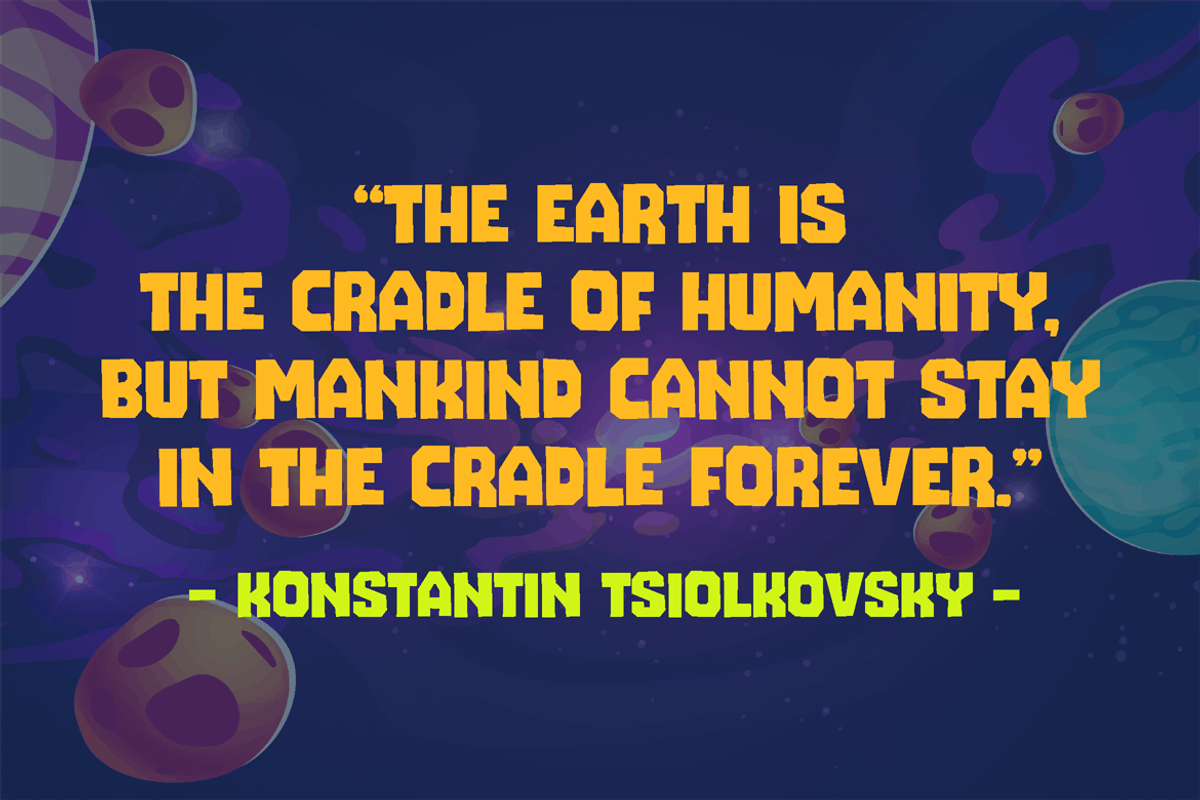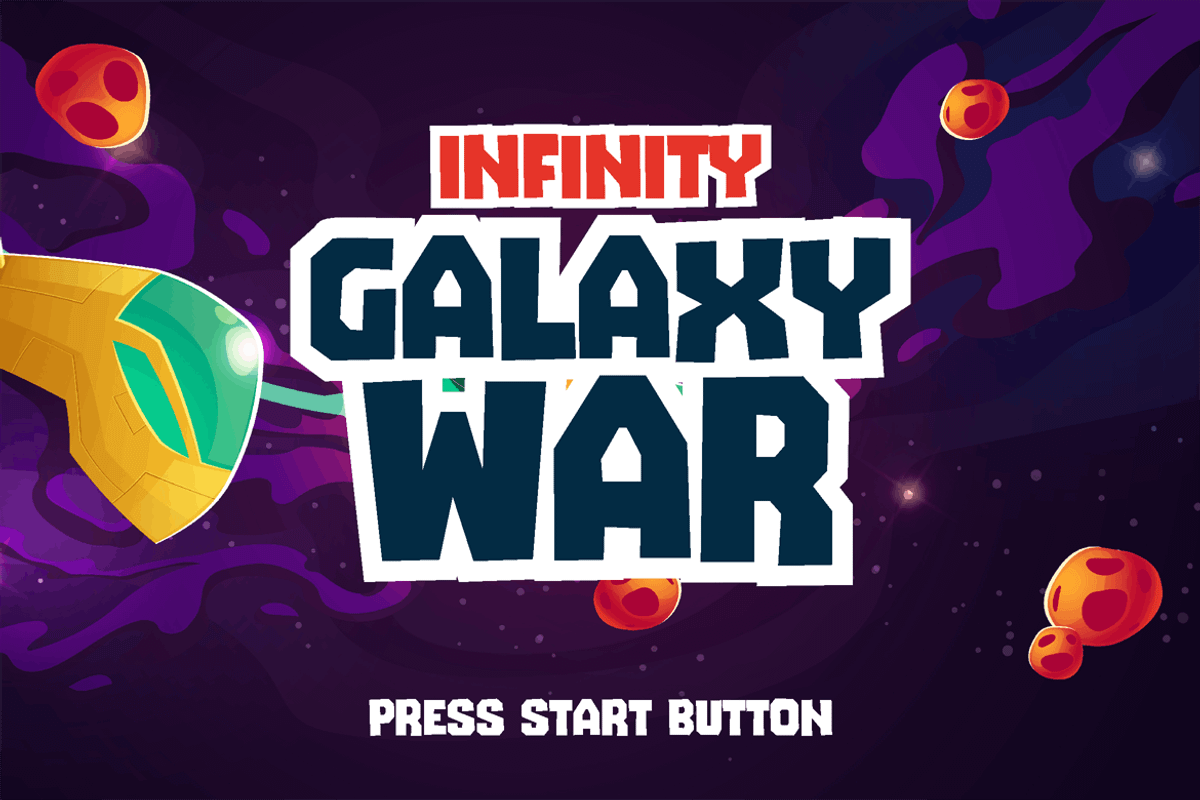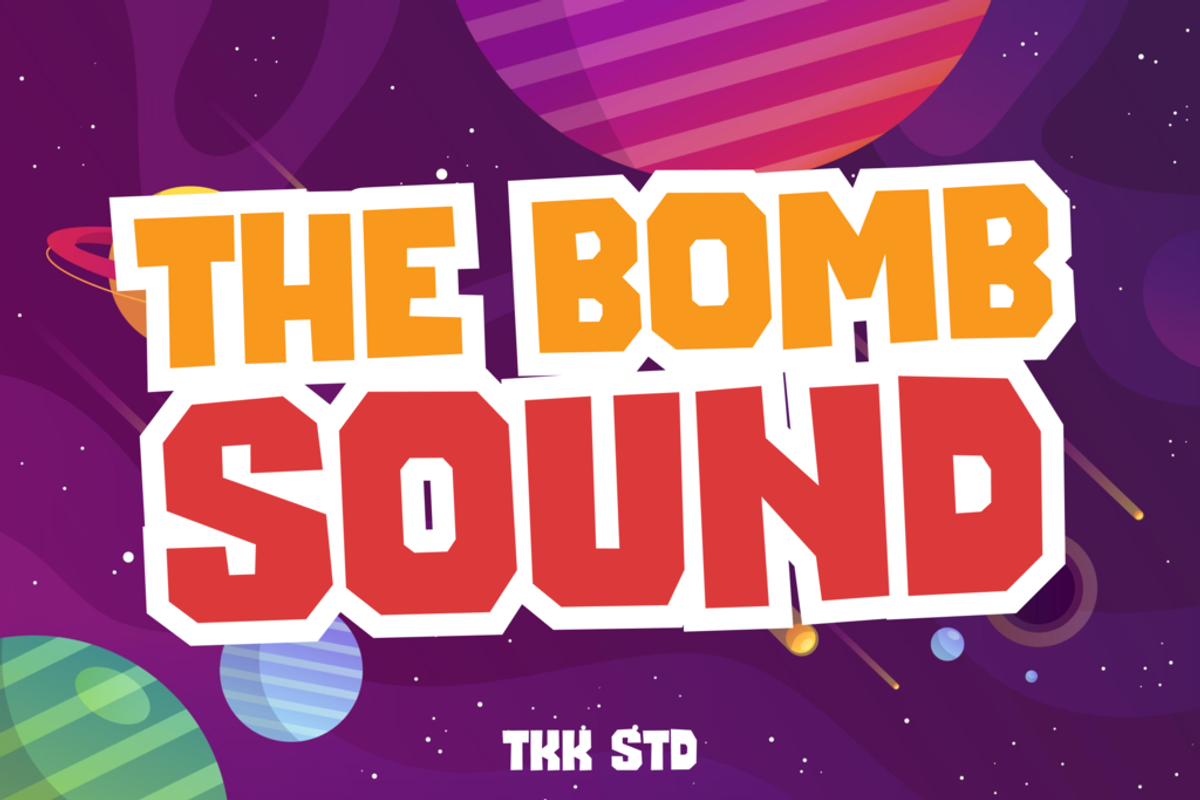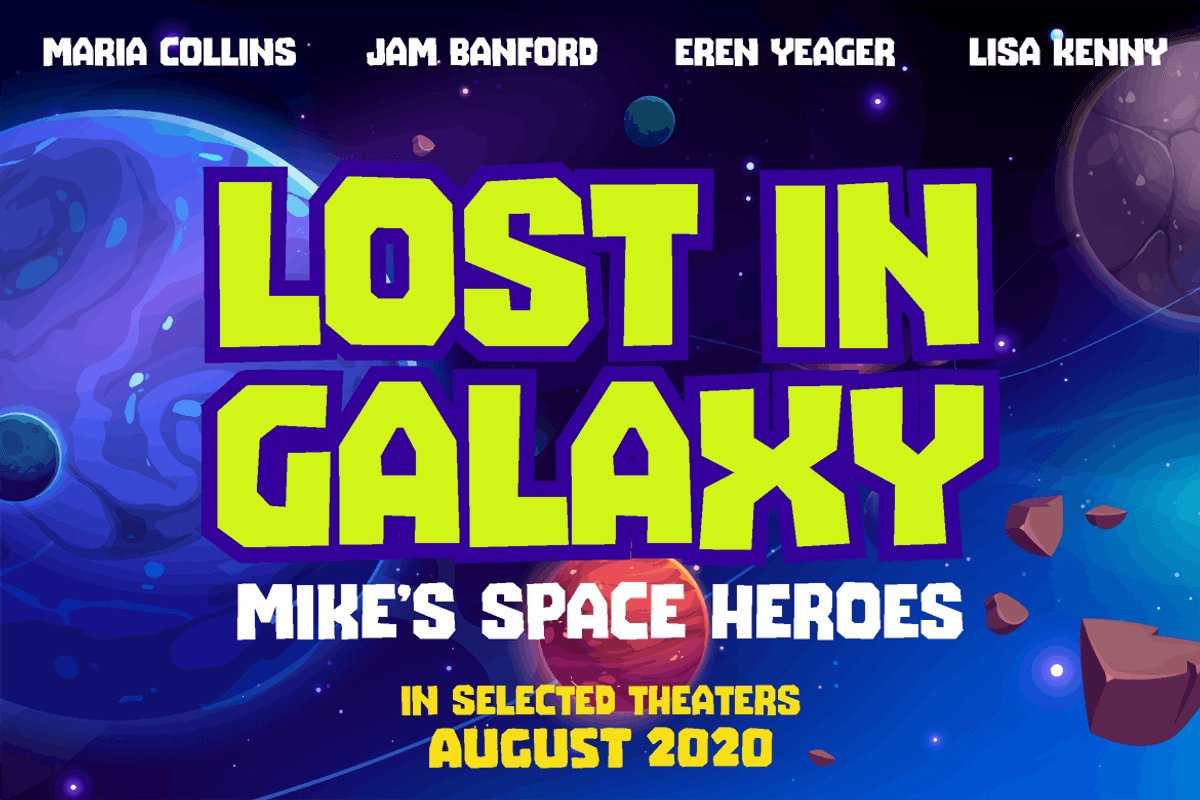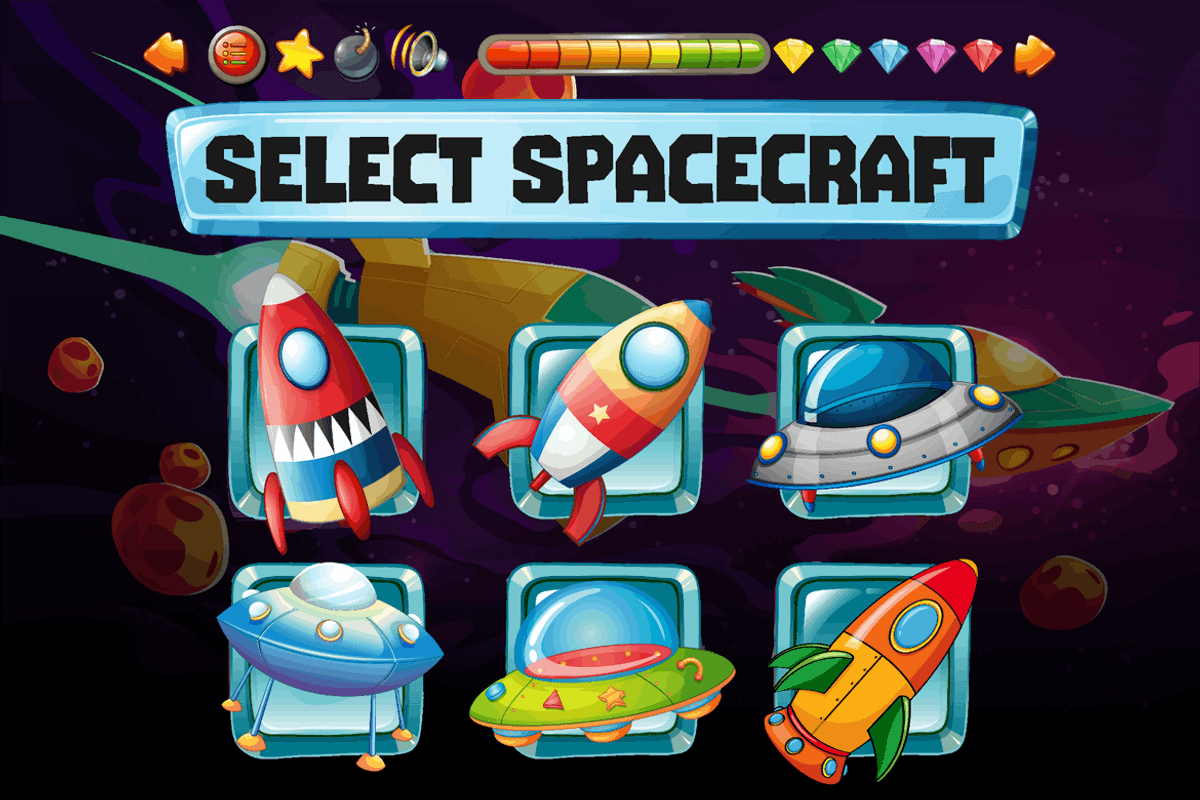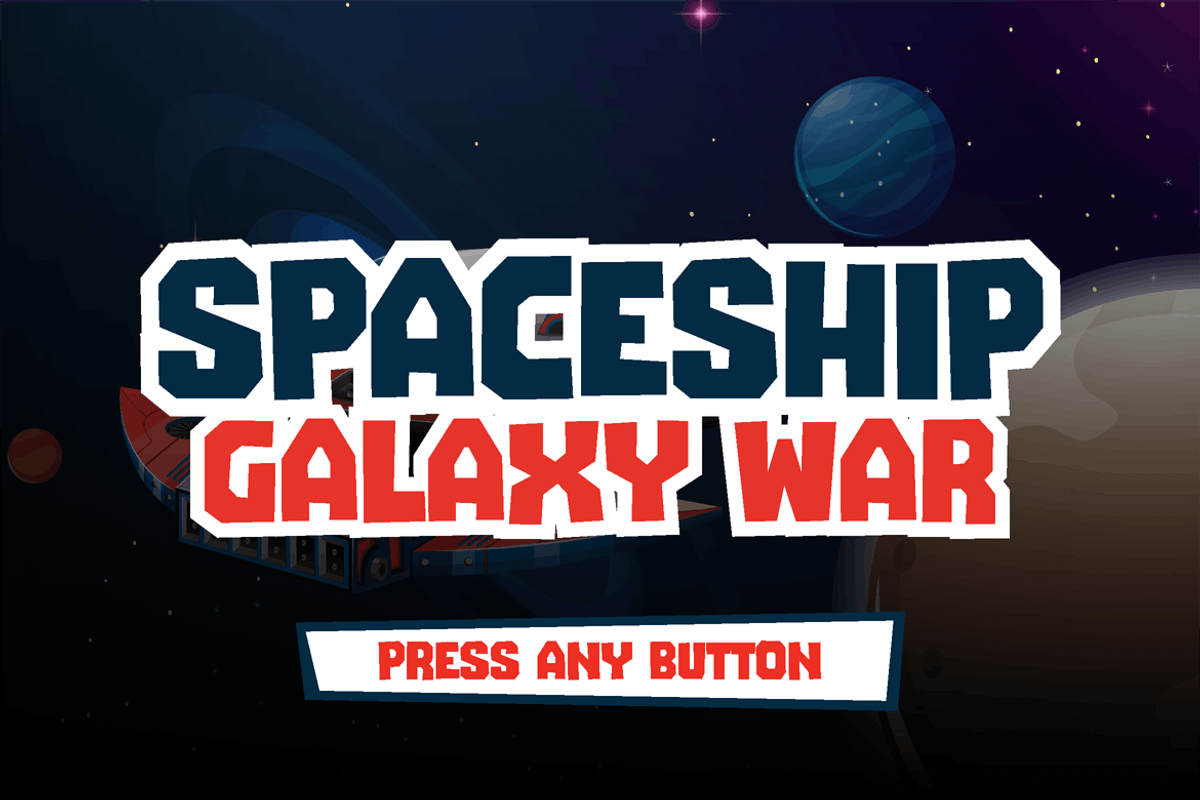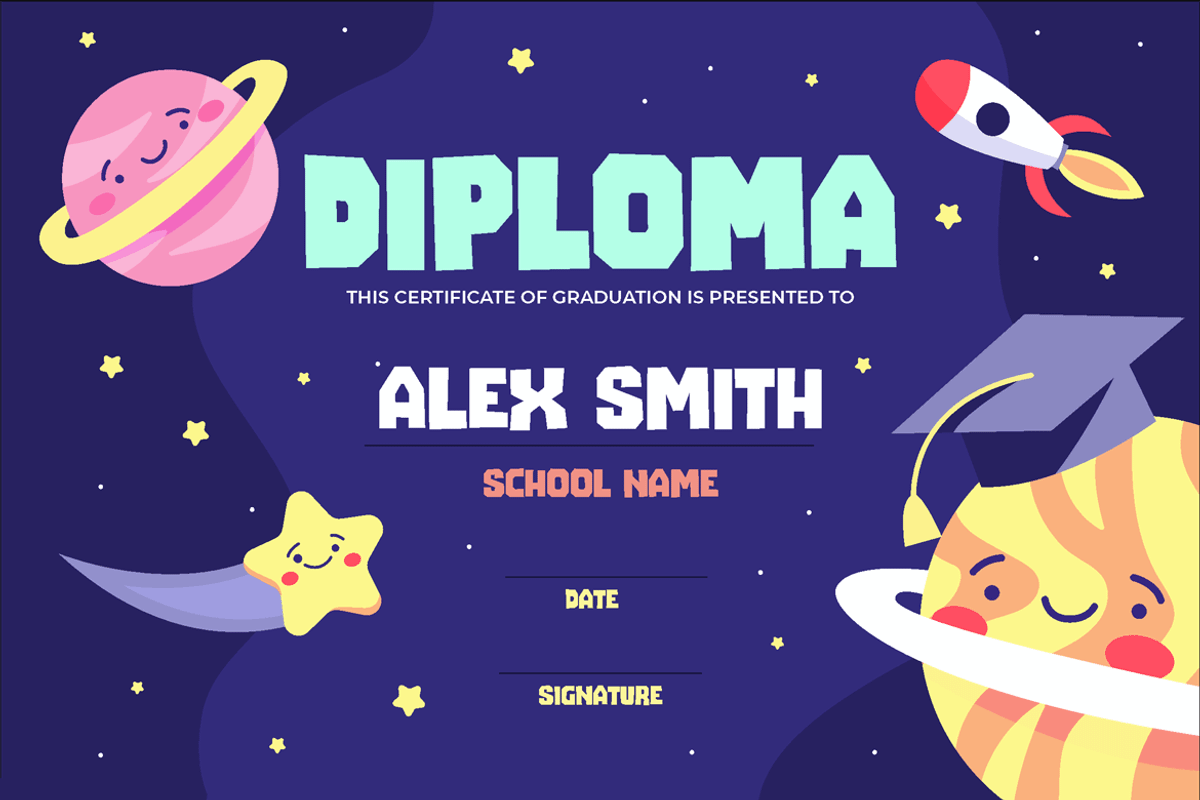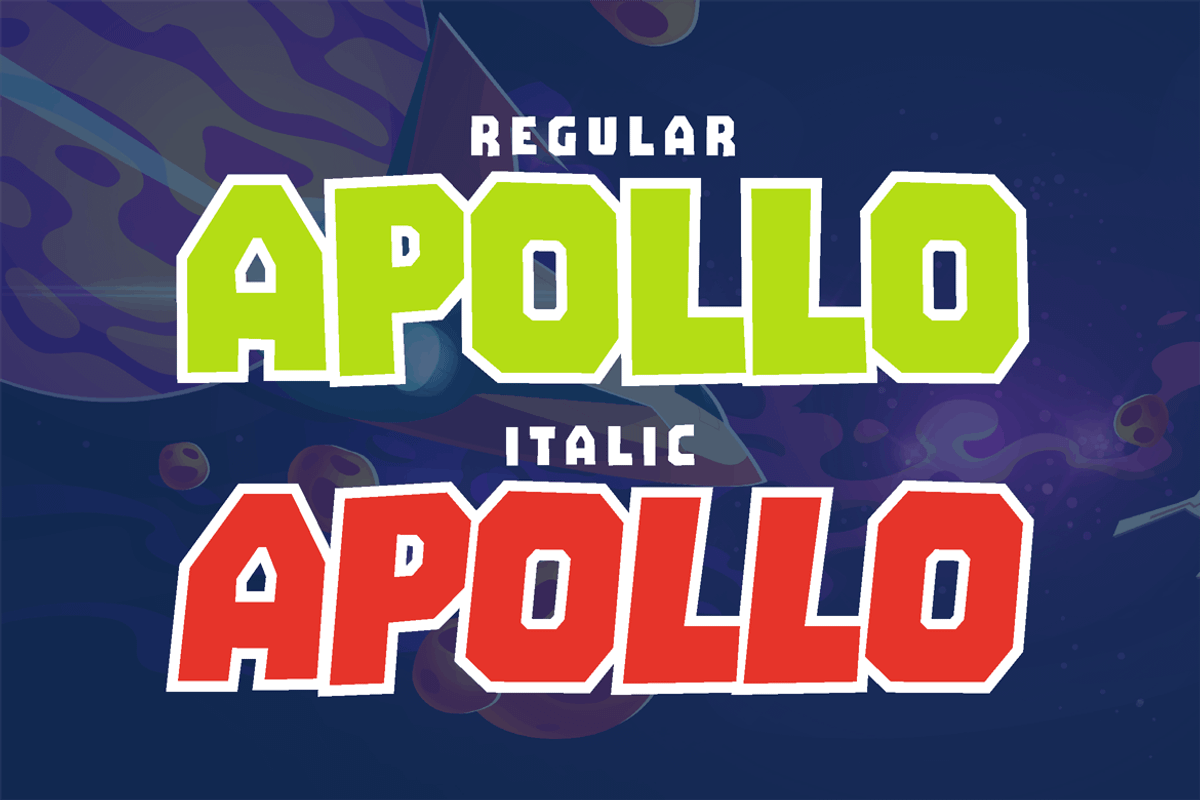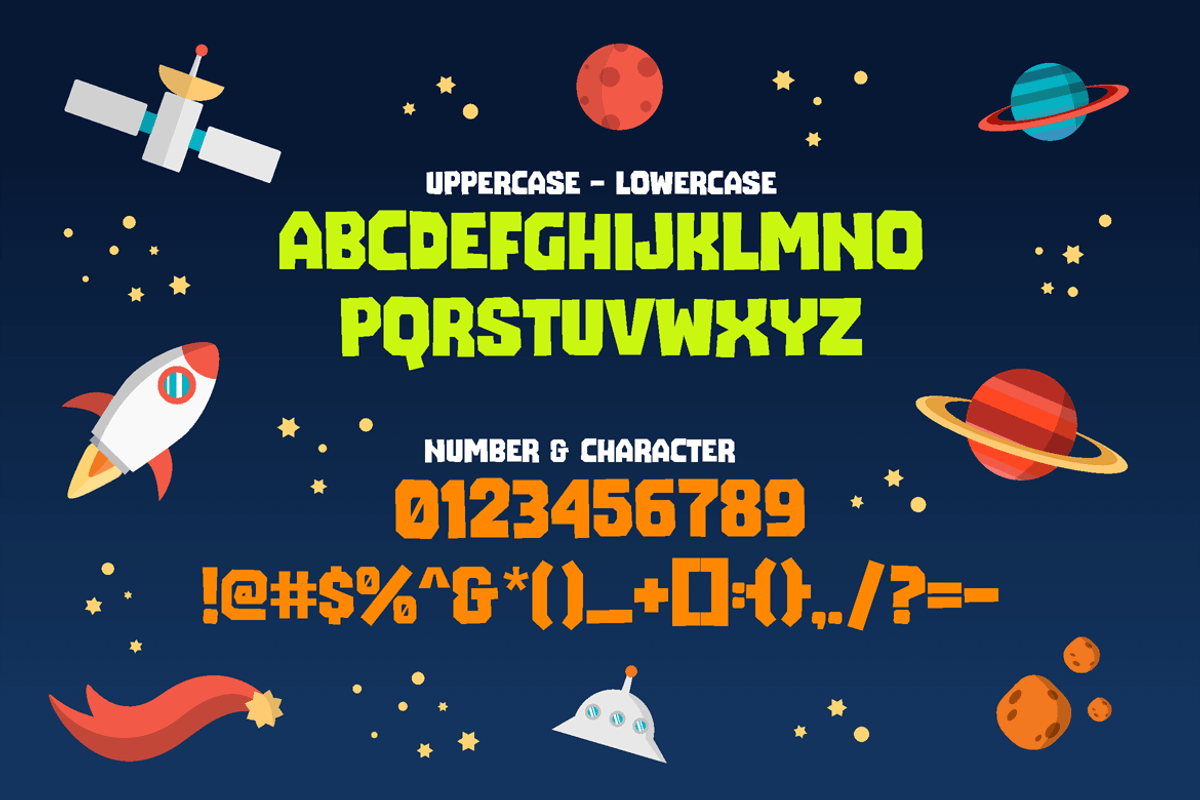
The Bomb Sound - Modern Font
The Bomb Sound modern font Having a blocky shape with a powerful, quirky, and strong sharp corner, will make emphasize every word you put on the screen.
Suit perfectly for Online Games, poster, movie title, magazine, youtube covers, youtube thumbnails, social media page covers and so on…